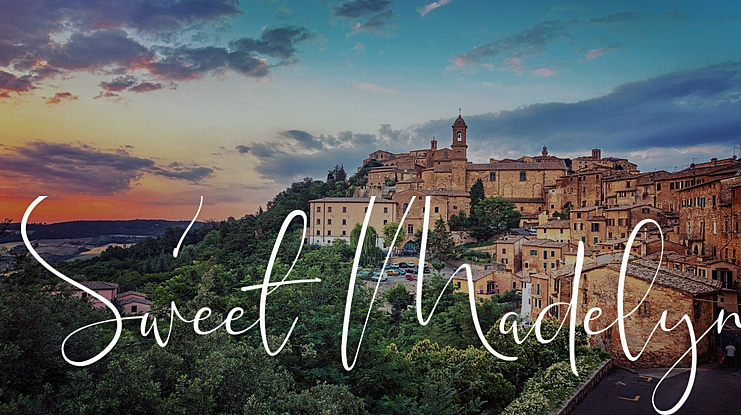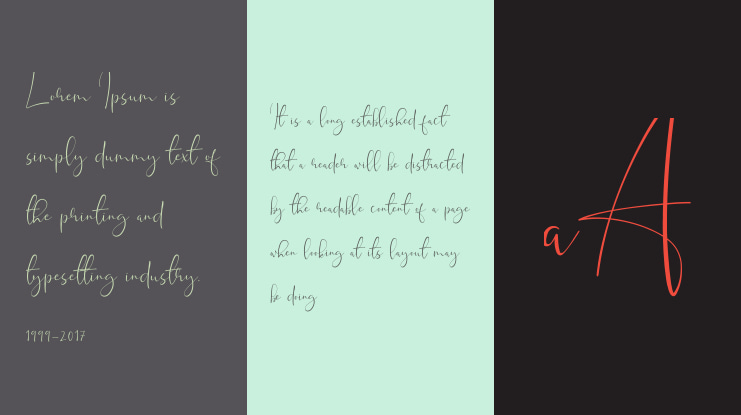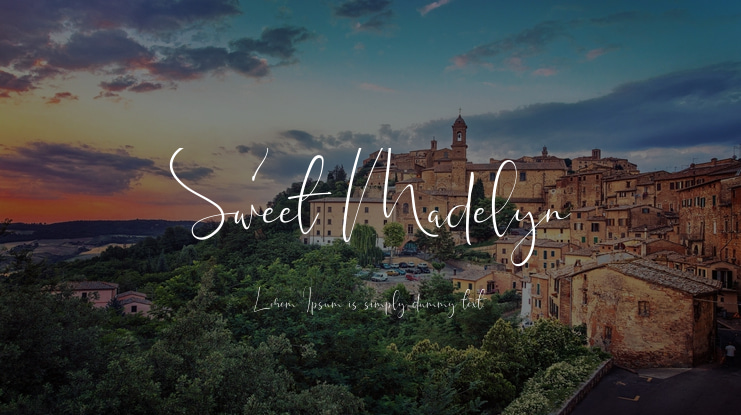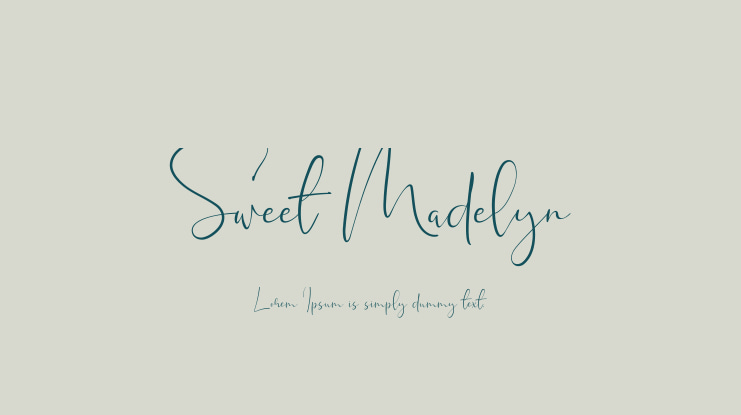
Sweet Madelyn Font
Introducing the new Sweet Madelyn script font - A fashionable, luxury and super-chilled new handwriting font script. This font is perfect for branding. You won't get cute, whimsical, funny logos with this font. Only high-end, upscale, sophisticated Branding Design.
Sweet Madelyn font was created to look as close to a natural handwritten script as possible by including 105 ligatures. Sweet Madelyn also includes full set of uppercase and lowercase letters, multilingual symbols, numerals, punctuation.